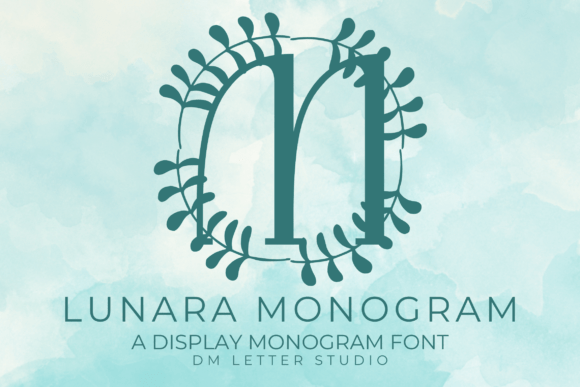
Lunara Monogram Font: Elevate Your Designs with Timeless Elegance
In the world of typography, a well-crafted font can make all the difference in elevating your designs from ordinary to extraordinary. For creators seeking to blend modern refinement with timeless grace, Lunara Monogram Font is an exceptional choice. This sophisticated serif monogram font is specifically designed for luxury branding, custom stationery, wedding invitations, personalized gifts, and boutique logos, providing a polished, upscale look without sacrificing warmth or individuality.
Key Features of Lunara Monogram Font
- Serif Strokes with a Modern Twist: Lunara Monogram features graceful serif strokes that bring a touch of classic elegance to your designs, while its slightly modern twist ensures it remains fresh and contemporary.
- Balanced Proportions: Each uppercase letter is thoughtfully designed with balanced proportions, subtle curves, and elegant detailing, ensuring a harmonious and refined appearance.
- Versatility: The font includes a complete A–Z uppercase character set, numerals, basic punctuation, and multilingual support, making it incredibly versatile for various design applications.
Ideal Design Applications for Lunara Monogram
Lunara Monogram’s refined serif style and elegant appearance make it suitable for a wide range of design applications, including:
- Luxury Branding: Create sophisticated brand identities with Lunara Monogram’s high-end typography, perfect for high-end businesses and boutique logos.
- Custom Stationery: Elevate your stationery designs with Lunara Monogram’s elegant and refined appearance, ideal for personal or business use.
- Wedding Invitations: Add a touch of luxury and sophistication to your wedding invitations, ensuring an unforgettable first impression.
- Personalized Gifts: Create unique and thoughtful gifts with Lunara Monogram, perfect for engraving initials on leather goods or designing custom products.
- Boutique Logos: Develop a distinctive brand identity with Lunara Monogram’s high-impact aesthetic, suitable for boutiques, luxury brands, and high-end businesses.
Typography Tips for Using Lunara Monogram
To get the most out of Lunara Monogram, consider the following typography tips:
- Pair with Script Fonts: Combine Lunara Monogram with elegant script fonts to create a sophisticated and refined brand system or personal monogrammed piece.
- Mix with Minimal Sans-Serifs: Pair Lunara Monogram with clean and minimalist sans-serif fonts to achieve a harmonious balance between modernity and elegance.
- Experiment with Font Sizes: Take advantage of Lunara Monogram’s versatility by experimenting with different font sizes, from large-scale signage to detailed designs like product tags and thank-you cards.
The Benefits of Using Lunara Monogram Font
Lunara Monogram offers numerous benefits for designers and creators, including:
- Timeless Elegance: Lunara Monogram’s classic serif design ensures a timeless appearance that won’t go out of style.
- Modern Refinement: The font’s subtle modern twist adds a touch of sophistication and refinement to your designs.
- Flexibility: Lunara Monogram’s versatility makes it suitable for a wide range of design applications, from luxury branding to custom stationery.
- High-Impact Aesthetic: The font’s elegant and refined appearance ensures a high-impact aesthetic that will elevate your designs and leave a lasting impression.
In conclusion, Lunara Monogram Font is an exceptional choice for creators seeking to add a touch of timeless elegance and modern refinement to their designs. With its sophisticated serif design, versatile character set, and compatibility with popular design software, Lunara Monogram is the perfect font for luxury branding, custom stationery, wedding invitations, personalized gifts, and boutique logos. Whether you’re a designer, crafty DIY enthusiast, or business owner, Lunara Monogram is sure to elevate your designs and leave a lasting impression.